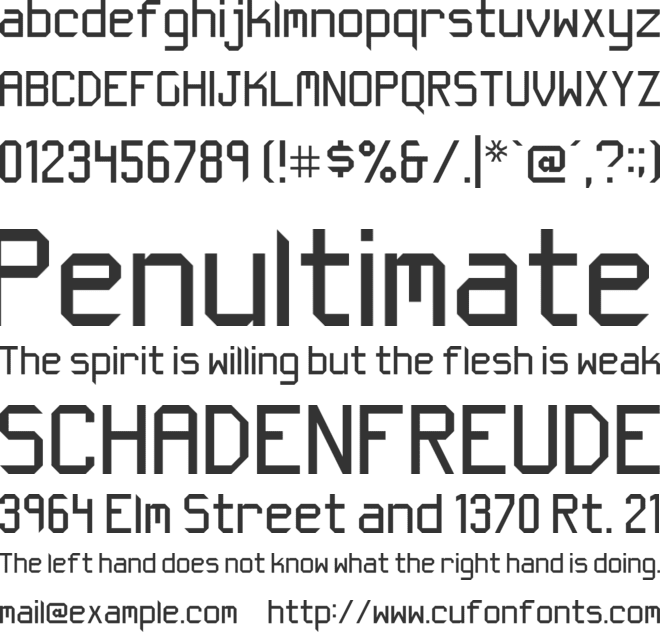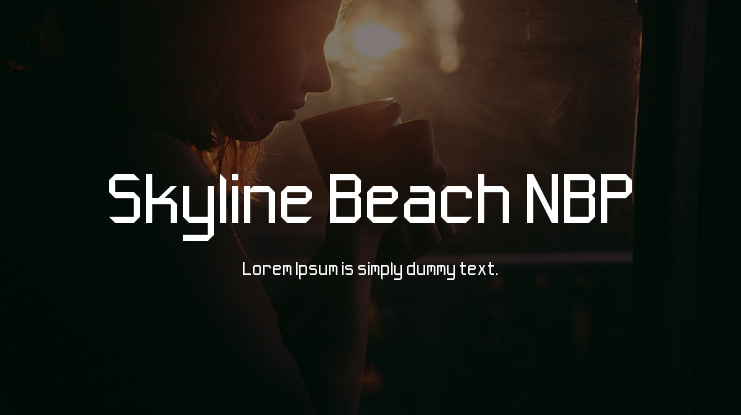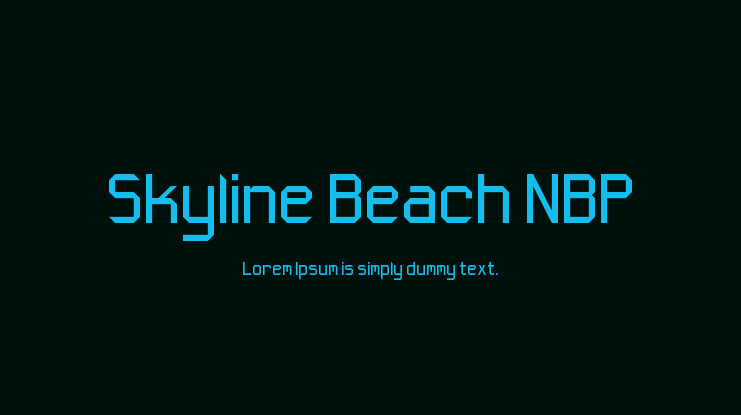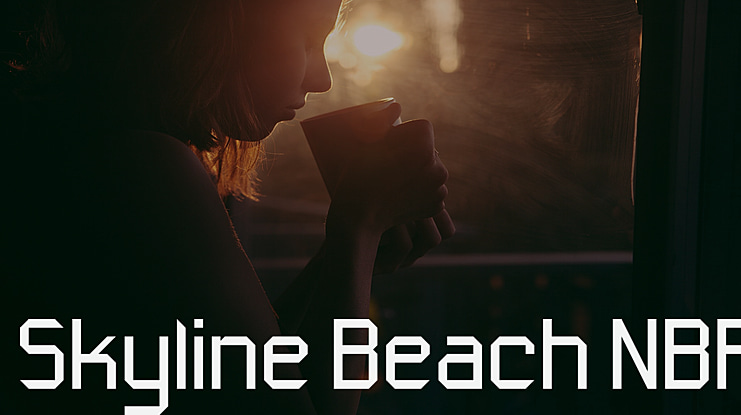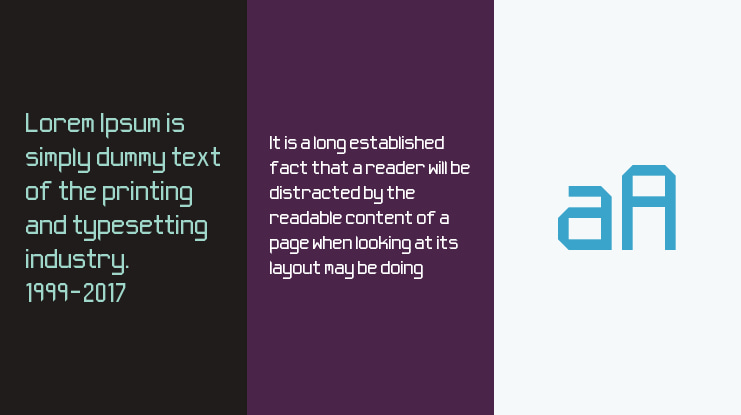
Skyline Beach NBP Font
Named after the coolest district in The Urbz GCN, Skyline Beach is a high-tech typeface inspired by Russell Square and FF District.
-Added Cyrillic characters